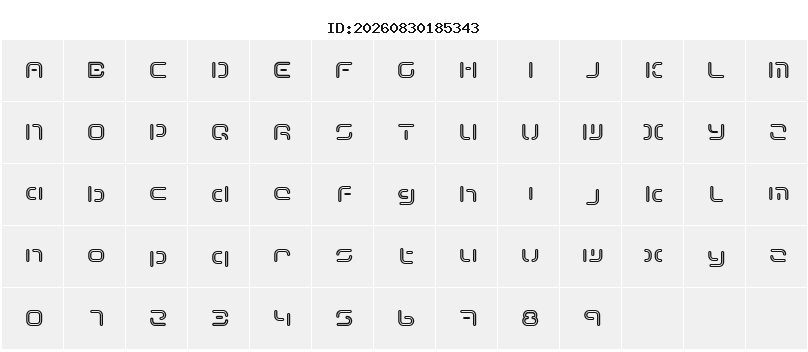
• Font Name: Term
About Term.ttf
Term.ttf is a modern, elegant sans-serif font designed for ultimate readability and visual harmony. Perfect for branding, headlines, web design, and print materials.